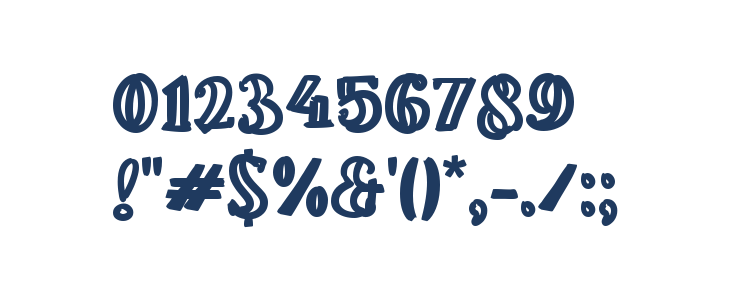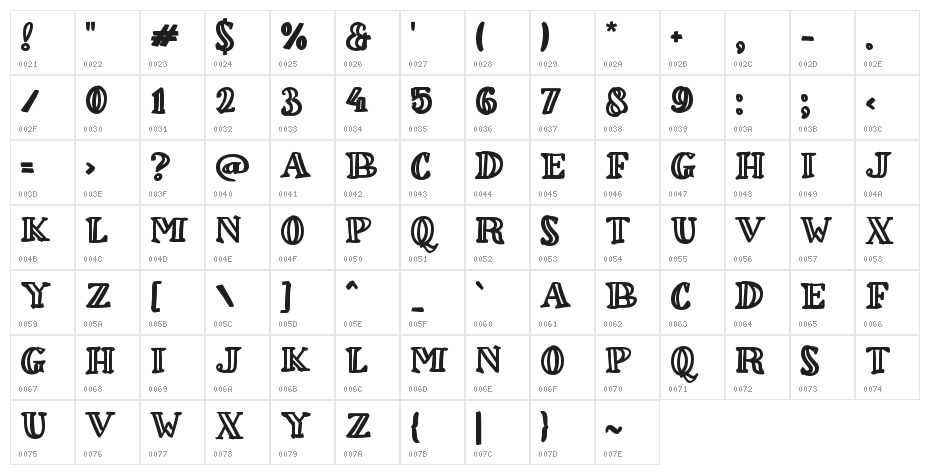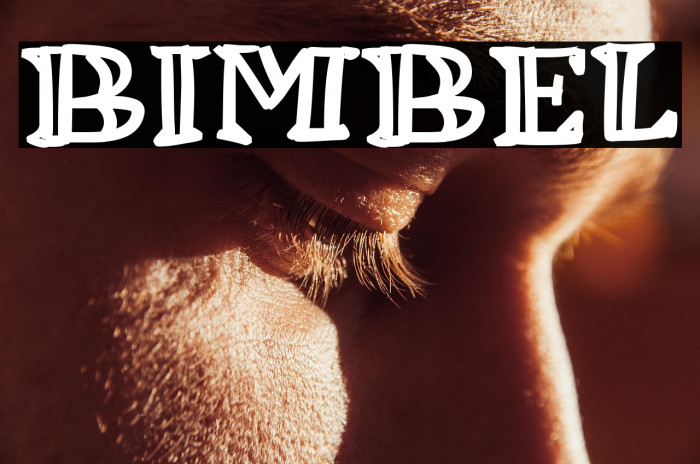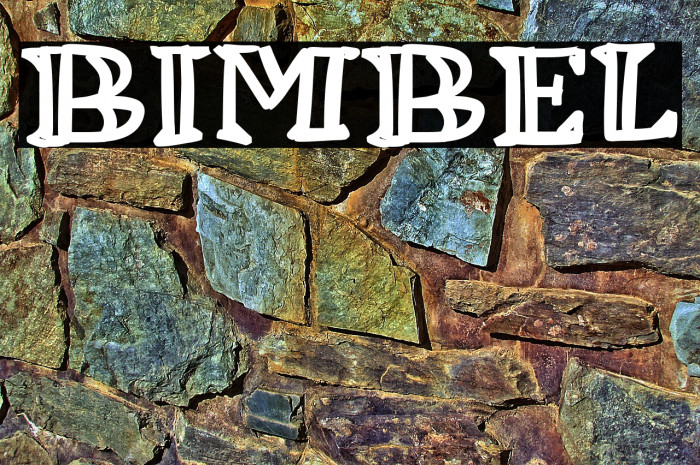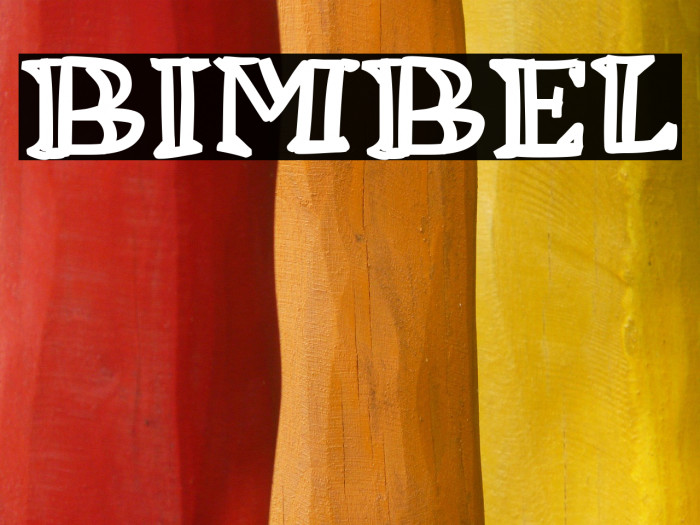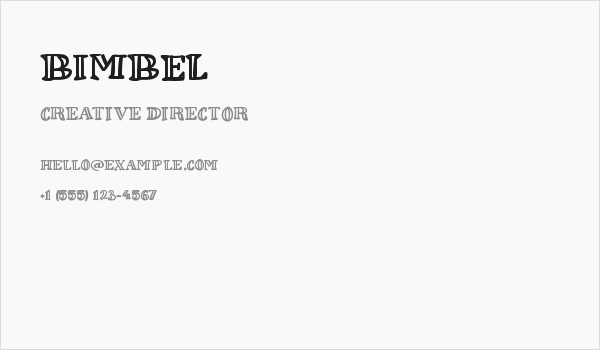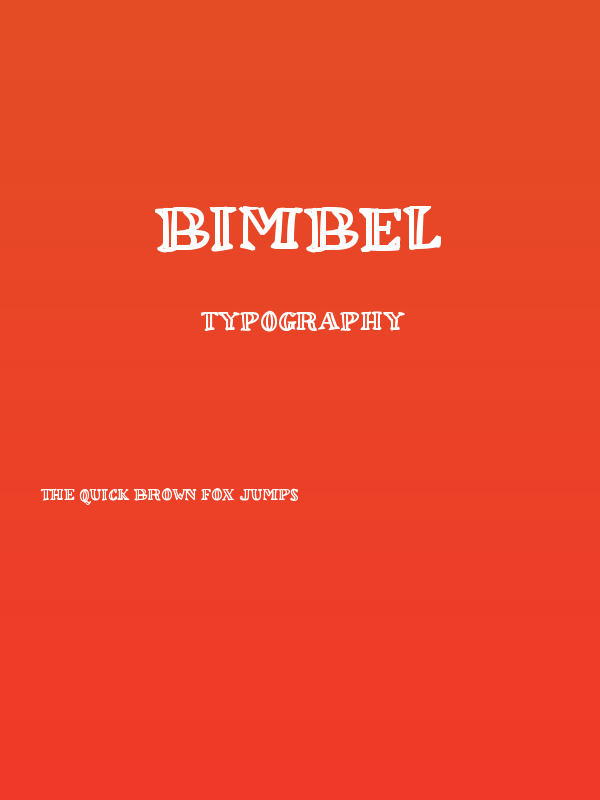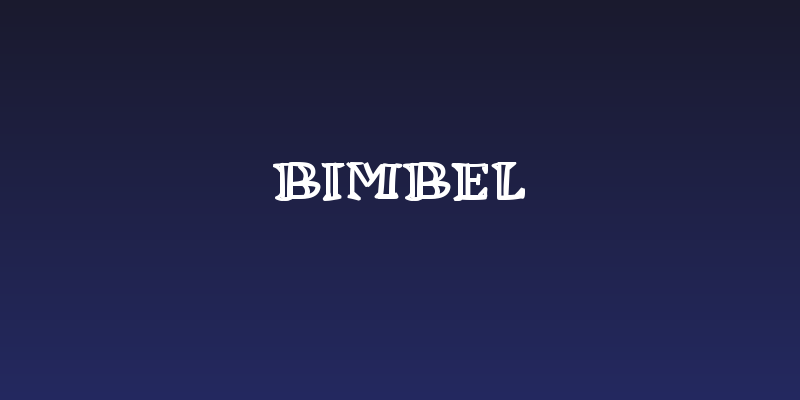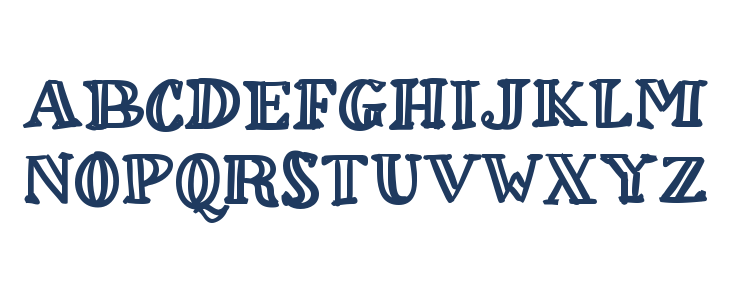
Bimbel Font
Bimbel Description
This font features a bold and playful design with a distinct decorative flair. Each character is outlined, giving it a three-dimensional effect that adds depth and interest. The letters are slightly condensed, with a whimsical style that includes curved and exaggerated serifs. The numbers and special characters maintain this playful aesthetic, making the font suitable for eye-catching designs. The overall look is both fun and dynamic, perfect for projects that require a touch of creativity and uniqueness.
| Width | Condensed |
| Overall Style | Playful, Decorative |
| Proposed Projects | Ideal for children's book covers, playful branding, event posters, and creative packaging. |